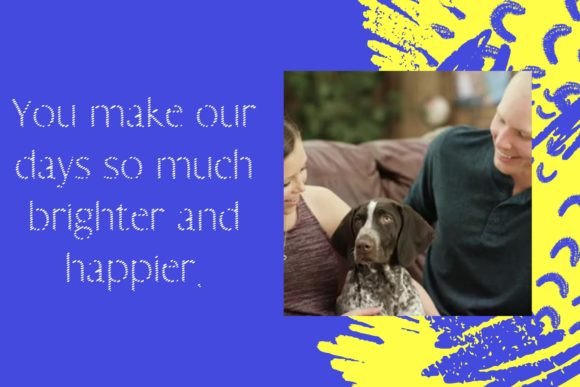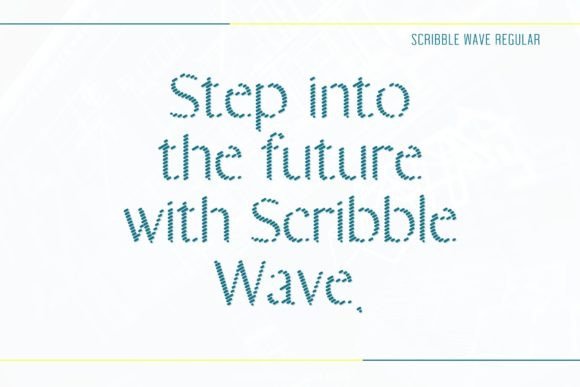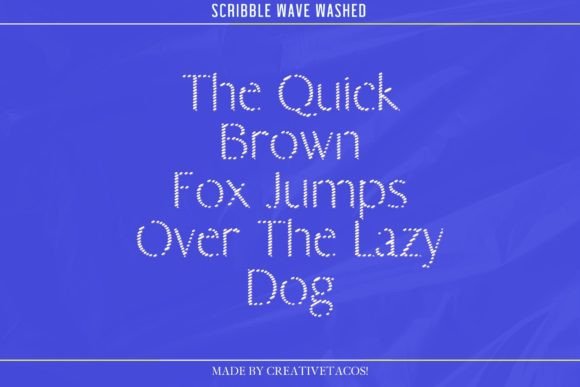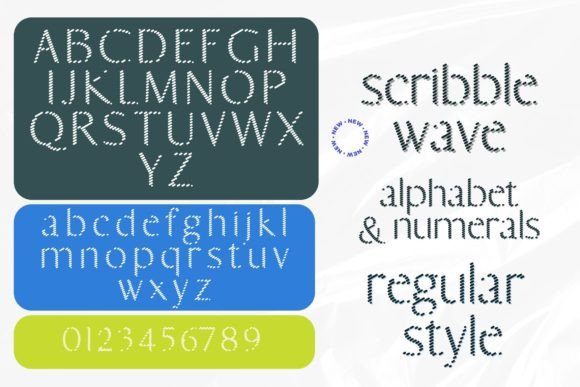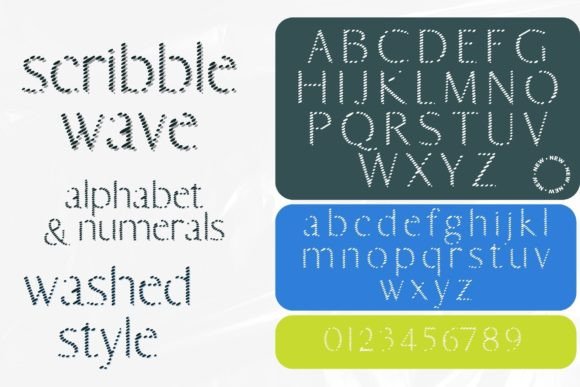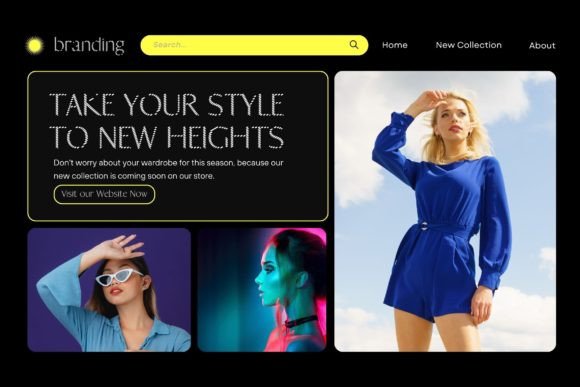
Introduction to Scribble Wave Font
Scribble Wave Font Pack is a bold and dynamic typeface that infuses your designs with energy and playfulness.
With its unique dotted and striped pattern in every letter, this font is ideal for adding a fun, modern twist to your projects Whether youโre crafting logos, titles, posters, or social media graphics, Scribble Wave delivers a lively and distinctive style that makes your designs pop.
Key Features of Scribble Wave Font
Why Choose Scribble Wave Font?
Scribble Wave Font offers exceptional quality and versatility, making it a valuable addition to your design toolkit. Whether you’re creating for personal projects or commercial use, Scribble Wave Font delivers professional results.